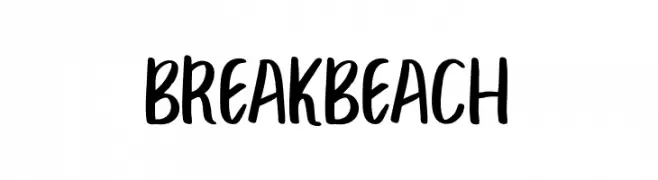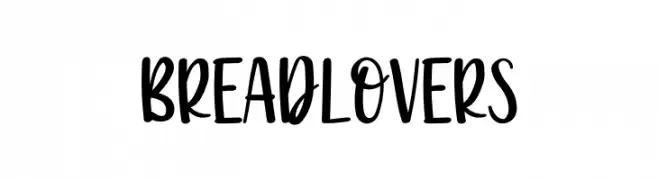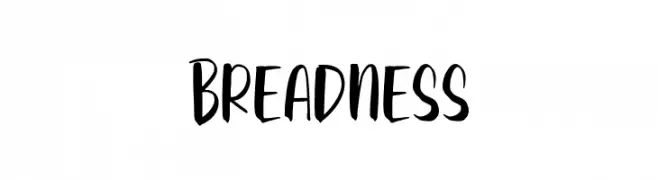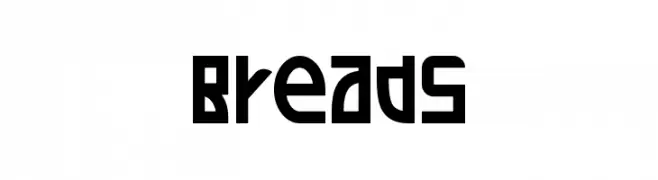
A playful, rounded font with a hand-drawn, casual style.
A playful, bold, and rounded font with a friendly and approachable style.
A bold, hand-drawn font with an expressive and dynamic style.
A bold, brush-style font with expressive, hand-painted strokes.
A modern, high-contrast sans-serif typeface with elegant strokes.
A bold, playful handwritten font with a lively and informal style.
A modern, italicized font with bold strokes and decorative elements.
A bold, playful handwritten font with flowing strokes and rounded edges.
A bold, geometric font with angular lines and a modern style.
A bold, hand-drawn font with a playful and casual style.